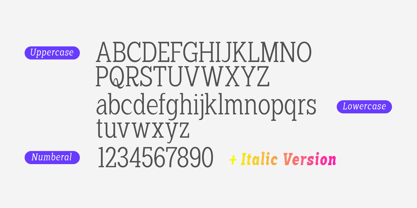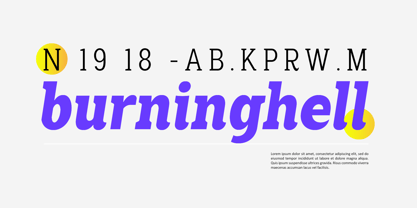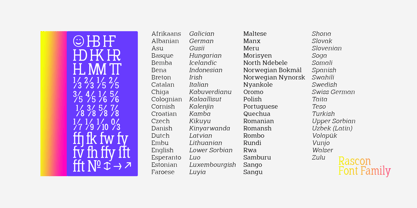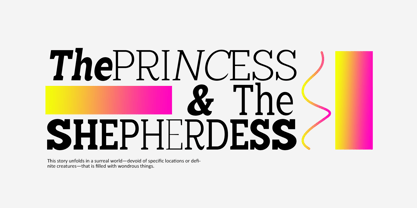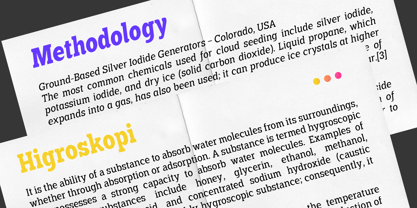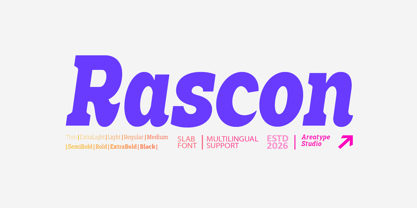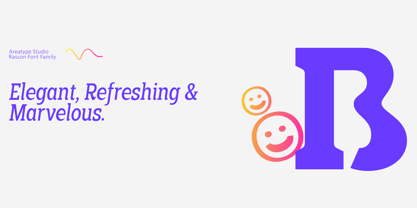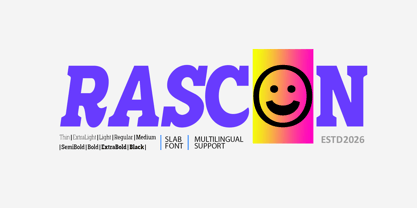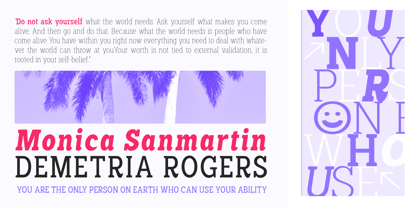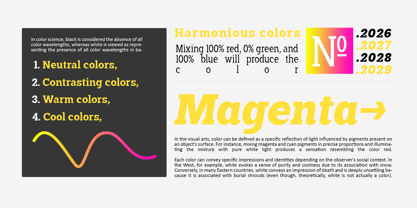
Rascon
by Areatype
With its refined aesthetic, Rascon delivers a sophisticated visual experience suitable for a wide range of needs, from luxury product branding to editorial publishing.
The package includes 90 fonts spanning various weights—from Light to Black—and styles, including upright and slanted versions; OpenType features enable typographic elements such as ligatures and multilingual support.
A Variable Font version is also available, facilitating smoother workflows, responsive typography, and greater creative freedom across modern design applications.
Rascon is an excellent choice for branding, magazines, posters, advertising, print media, packaging, headlines, web design, and more.